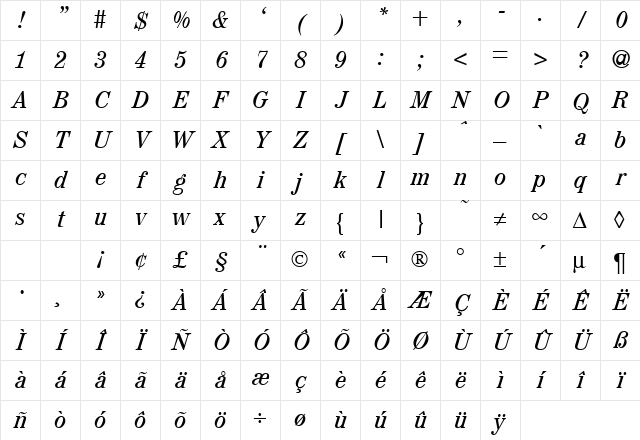
MapType is a composed and adaptable typeface that performs quietly and consistently across a wide range of design contexts. The slanted form adds forward momentum and visual energy.
Pro Tip: Use MapType for emphasis, pull quotes, and subheadings where its slanted energy can add rhythm to the layout.